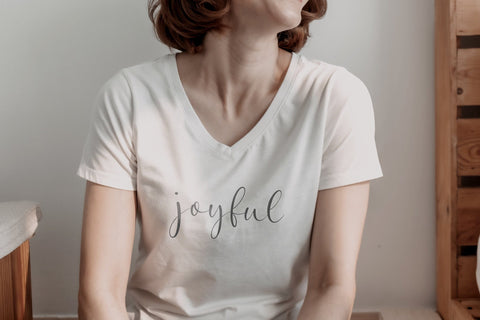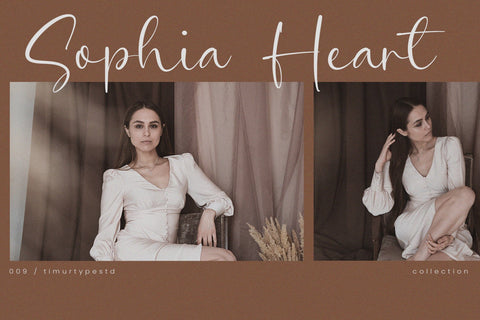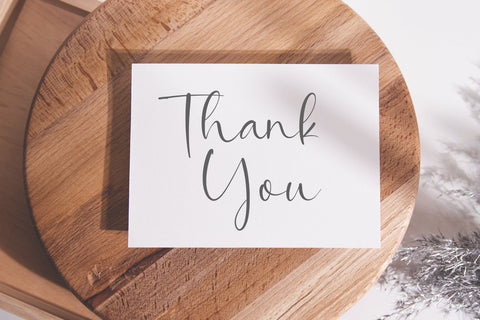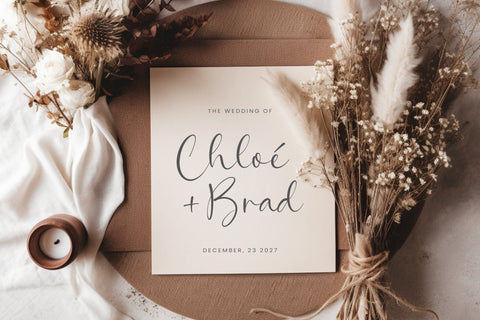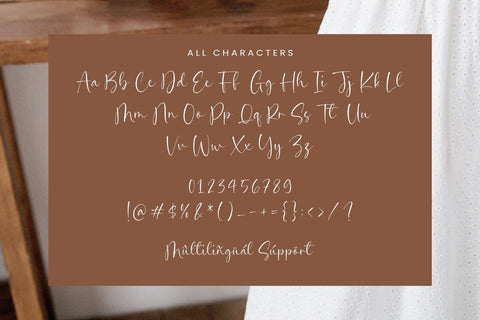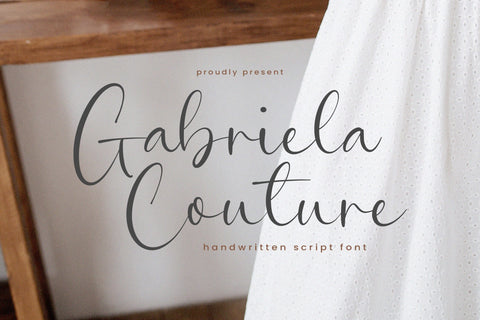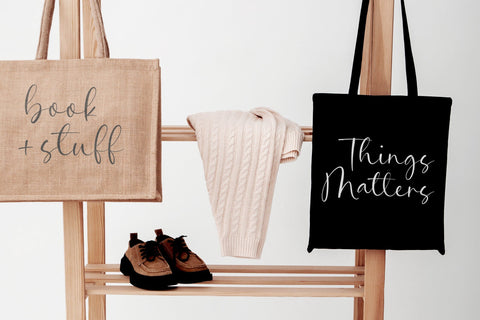
Gabriela Couture - Handwritten Script Font
Gabriela Couture is a Handwritten Script Font
This font exudes elegance and refinement, capturing the essence of sophistication and high-end fashion. With its graceful and fluid letterforms, this font brings a touch of luxury to any design project. The handcrafted details and intricate brush strokes add an authentic handwritten feel, giving your designs a sense of charm. The Gabriela Couture font is perfect for creating branding materials, logos, and invitations that require a touch of class and style. Embrace the couture experience and elevate your designs with the exquisite Gabriela Couture handwritten script font
Gabriela Couture Font also supports multilingualism.